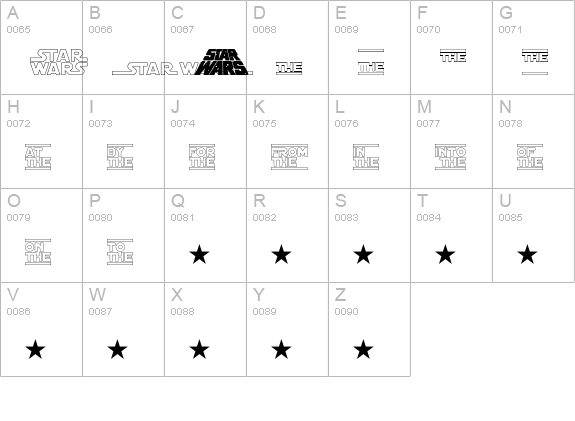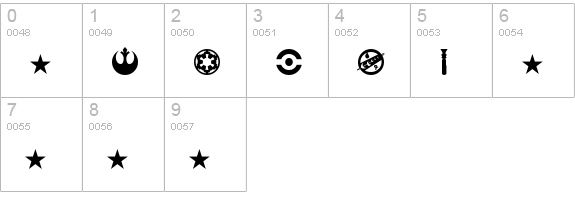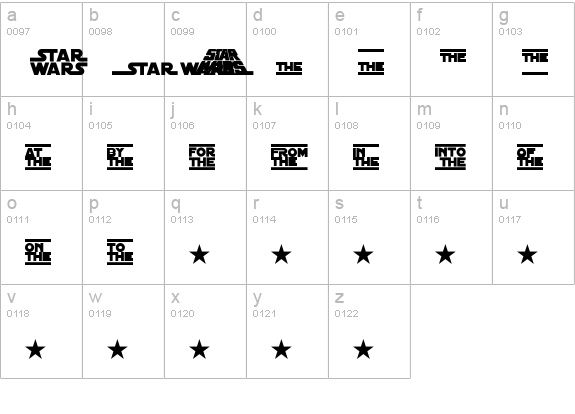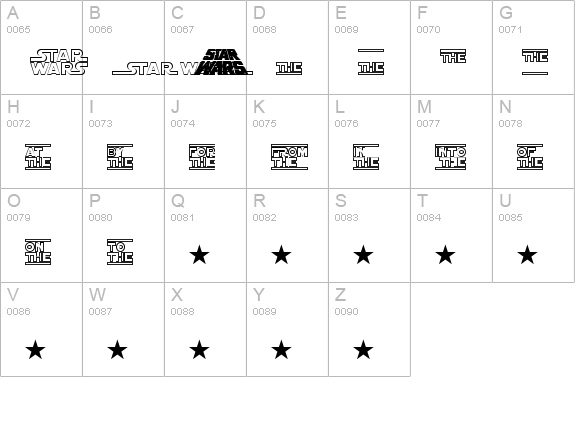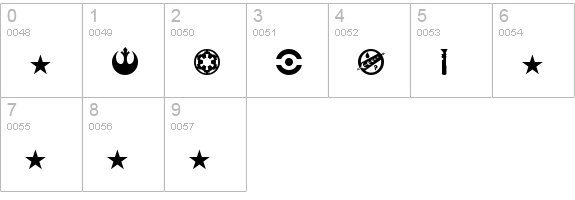
Dive into the mysterious world of Distant Galaxy Symbols font, a mesmerizing collection of celestial symbols that will transport you to a far-off galaxy. This intricate font features a variety of unique symbols inspired by the vastness of space, including stars, planets, moons, and other cosmic elements. Each symbol is carefully crafted with precision and detail, making them perfect for adding a touch of cosmic flair to your projects. What's even more exciting is that Distant Galaxy Symbols font is available for free download at FontsMarket.com. Now you can easily incorporate these captivating symbols into your designs without any cost. Whether you're creating a sci-fi poster, a futuristic logo, or a space-themed website, this font will help you bring your vision to life with its otherworldly charm. Don't miss out on the opportunity to explore the endless possibilities of Distant Galaxy Symbols font. Download it for free today and let your creativity soar to new heights in the infinite expanse of the cosmos.